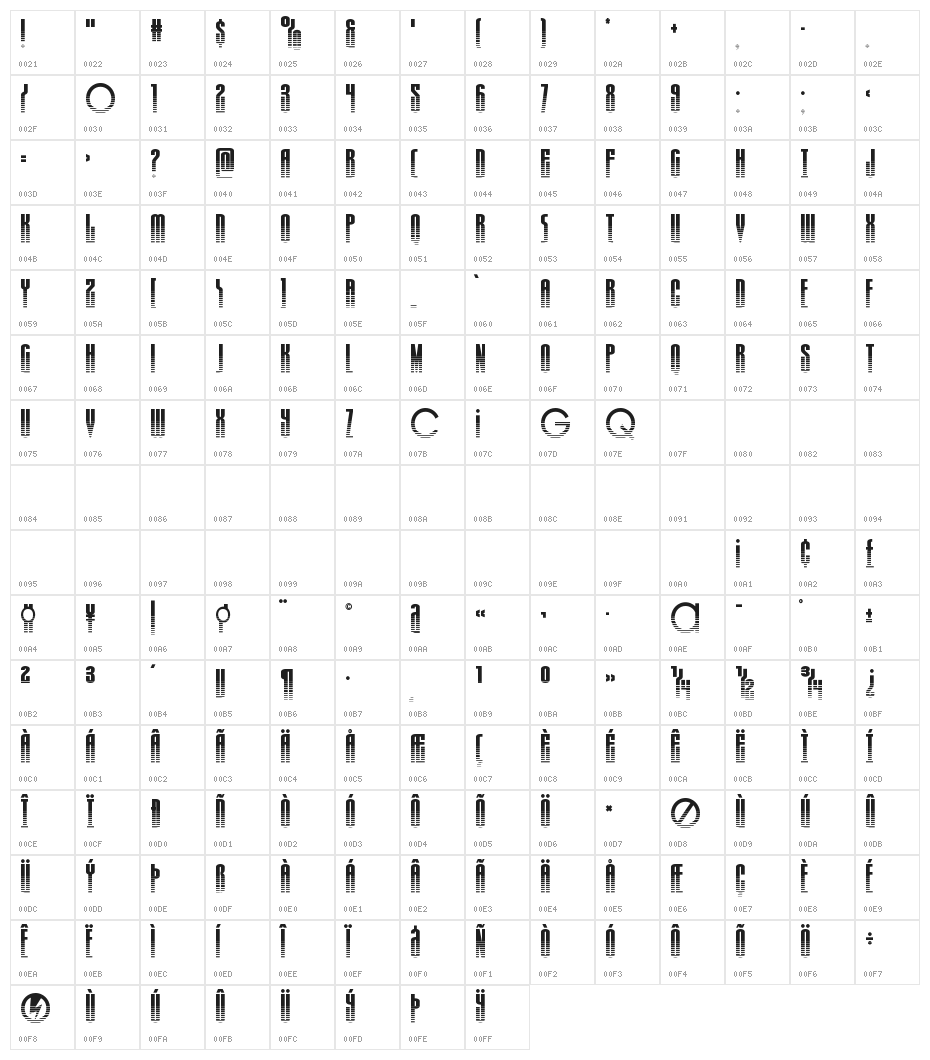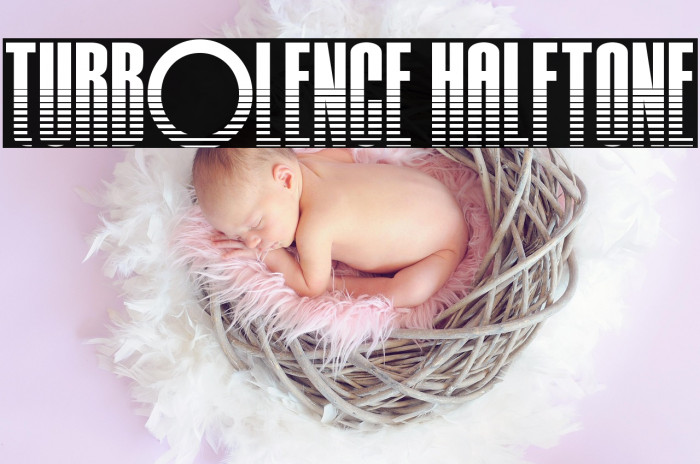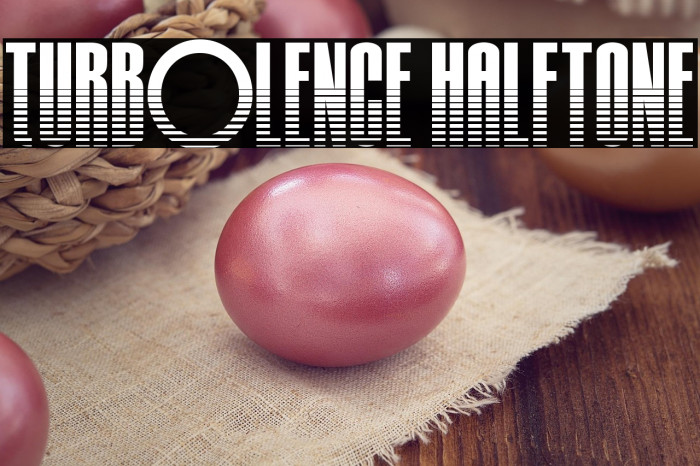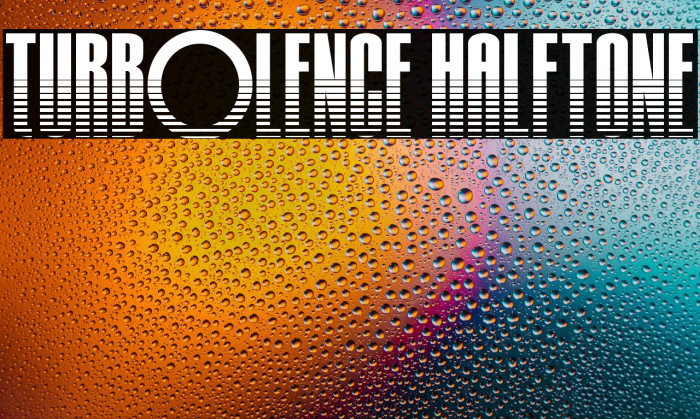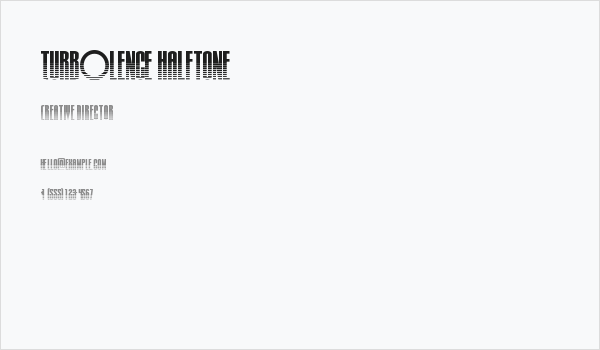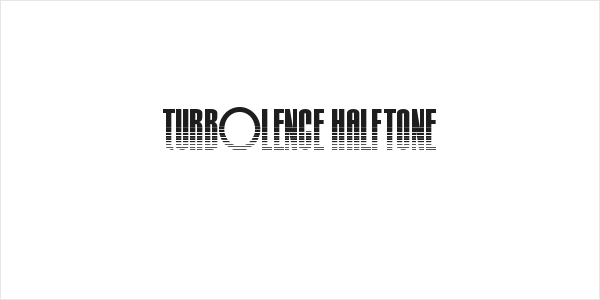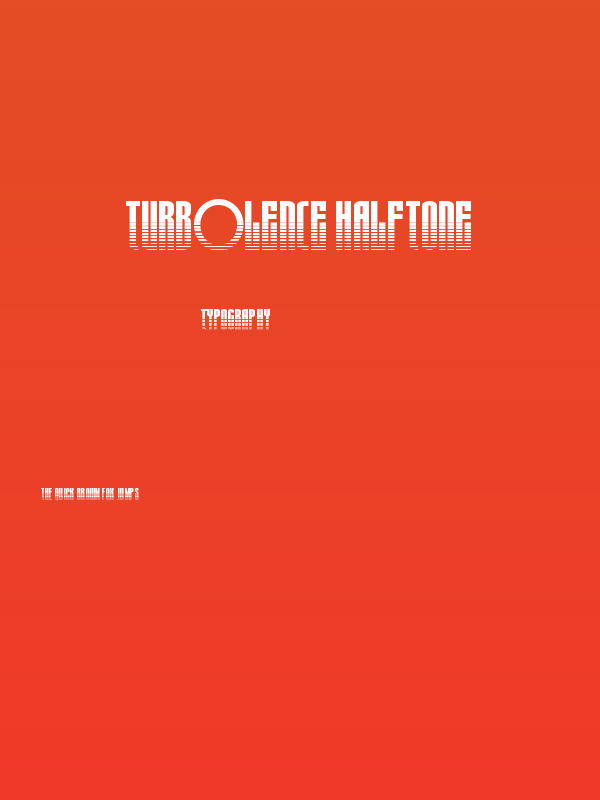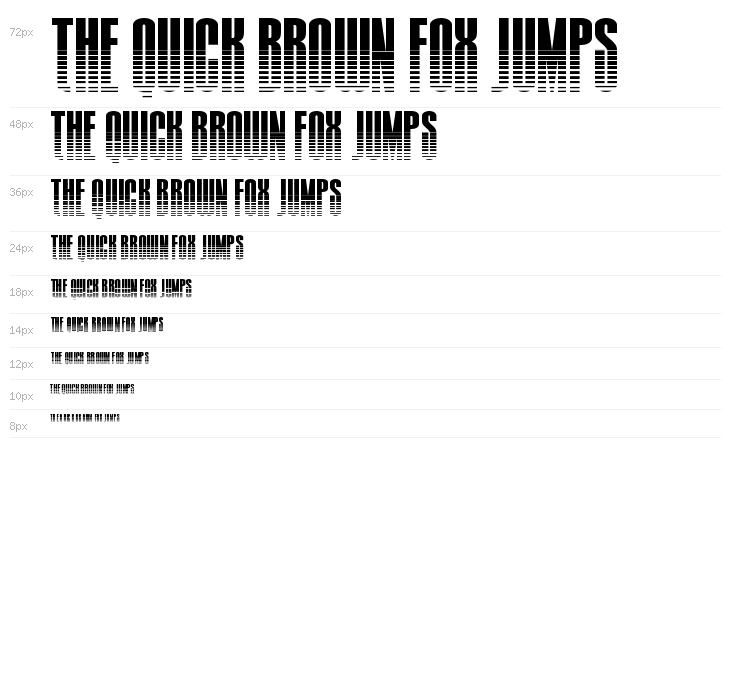
Turb0lence Halftone Font
Turb0lence Halftone Description
This font features a bold and striking design with a unique halftone effect that creates a sense of movement and energy. The characters are constructed with horizontal lines that vary in thickness, giving the appearance of a gradient or fading effect. This design choice adds a dynamic and modern touch to the font, making it stand out in any application. The uppercase and lowercase letters maintain a consistent style, ensuring readability while still offering a distinctive look. The numbers and special characters follow the same design principles, providing a cohesive appearance across all elements.
| Proposed Projects | Ideal for posters, album covers, branding, and any project needing a modern, eye-catching typeface. |